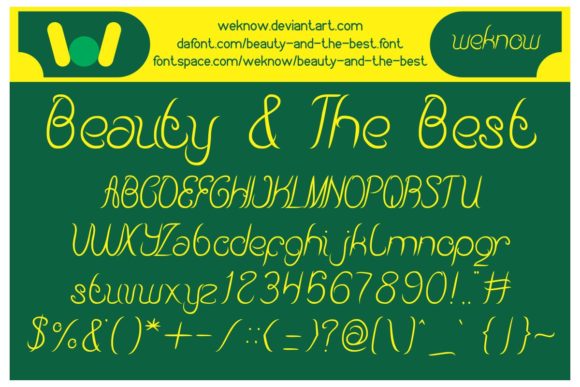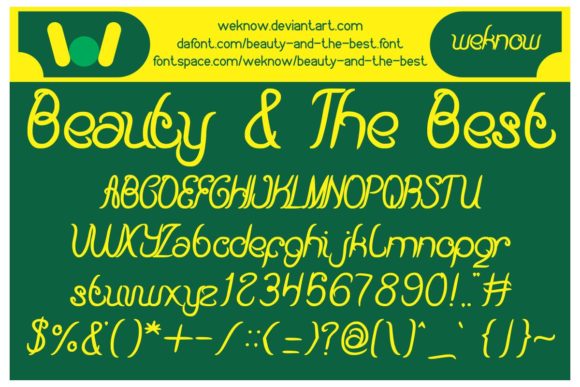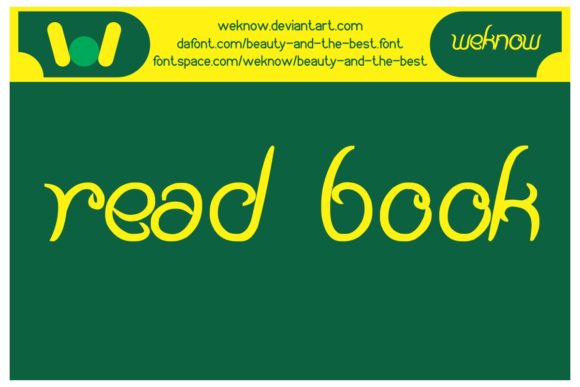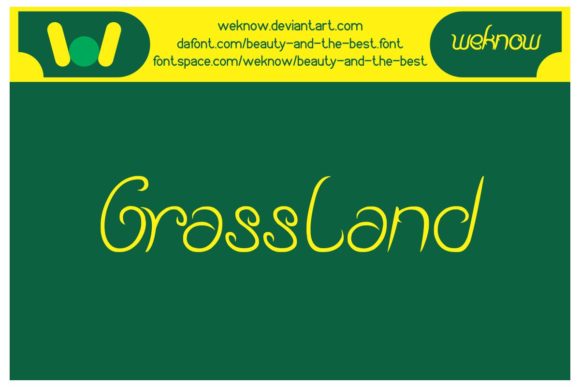
Beauty and the Best Font
About Beauty and the Best Font
Beauty and the Best is a unique script with playfully rounded characters and gorgeous swashes. Fall in love with its modern aesthetic!